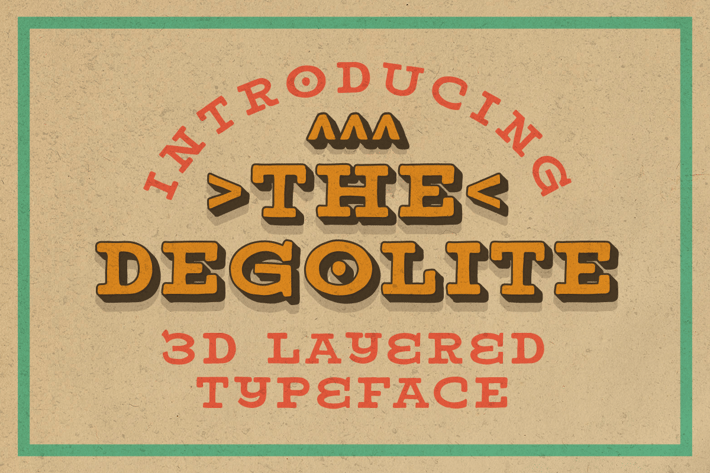
Degolite Extrude Typeface
MartypeCo
Smurtens is a slab serif typeface inspired by handmade lettering, this typeface is ready to use and suitable rush design like for Modern design, cover book, poster, flyer, vintage, classic, retro etc.
Degolite Regular
Degolite Outline
* Degolite Extrude